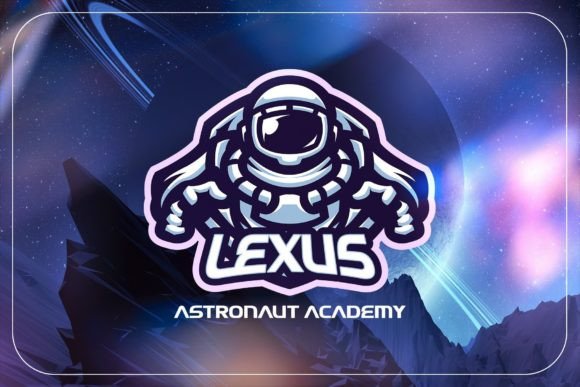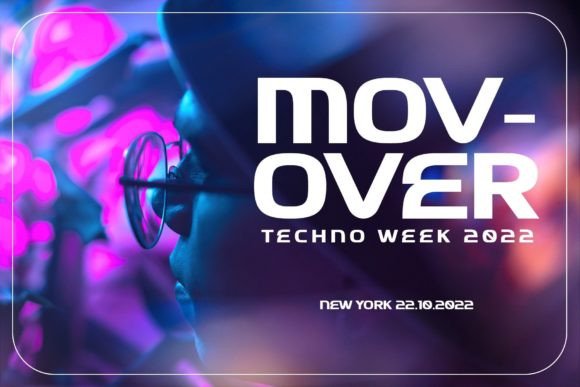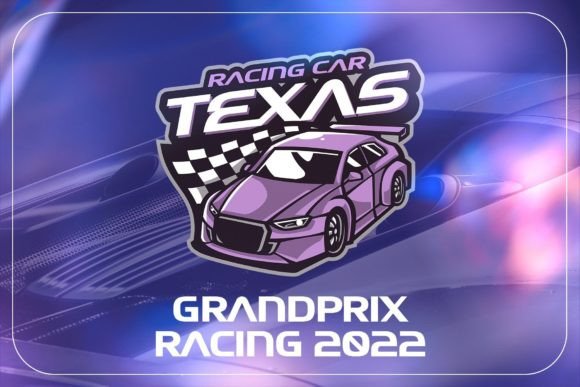
Flase Font
Flase is a modern and cool display font. Its fresh and futuristic look makes it suitable for a large variety of projects, adding an innovative accent to your creations.